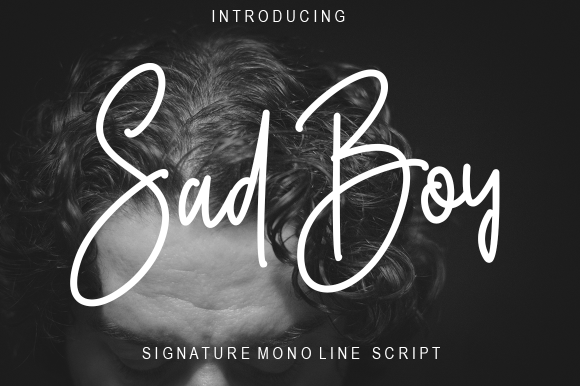
Introducing Sad Boy Font, the epitome of elegance and sophistication in the world of script fonts. Created by RasdiType, this meticulously crafted typeface is tailored to elevate your designs and make them truly unforgettable.
Sad Boy Font is a stunning handwritten font that effortlessly combines the timeless charm of calligraphy with a modern twist. Its graceful curves and intricate details add a touch of refinement to any project, capturing the essence of sophistication and class.
With its captivating allure, Sad Boy Font is the perfect choice for those seeking to create elegant logos that leave a lasting impression. Whether you're designing for a luxury brand, a fashion label, or a high-end business, this font will effortlessly convey your message of elegance and exclusivity.
Immerse yourself in the sheer beauty of Sad Boy Font and watch as it transforms your projects into works of art. Its versatility knows no bounds, allowing you to use it in a variety of contexts, from wedding invitations and branding materials to social media graphics and editorial layouts.
But Sad Boy Font is more than just a pretty face. It's a powerful tool that empowers you to unleash your creativity and take your designs to new heights. With its wide range of stylistic alternates and ligatures, you'll have endless possibilities to customize and personalize your work, ensuring it stands out from the crowd.
Don't settle for ordinary when you can have extraordinary. Sad Boy Font is here to inspire and captivate, leaving a lasting impression on anyone who lays eyes on your creations. Its unique blend of elegance and modernity will make your designs shine, allowing you to stand out in a sea of mediocrity.